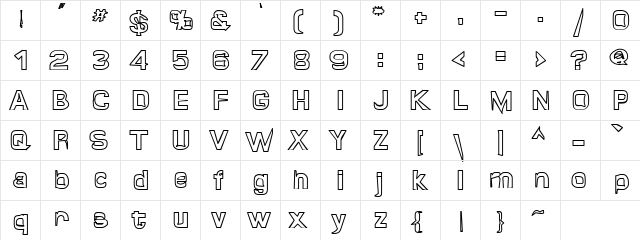
Quropa Hollow Regular
Design Context for Quropa Hollow Typeface
Quropa Hollow takes a measured approach to typography — its balanced proportions and neutral character make it a reliable workhorse for both digital and print work.